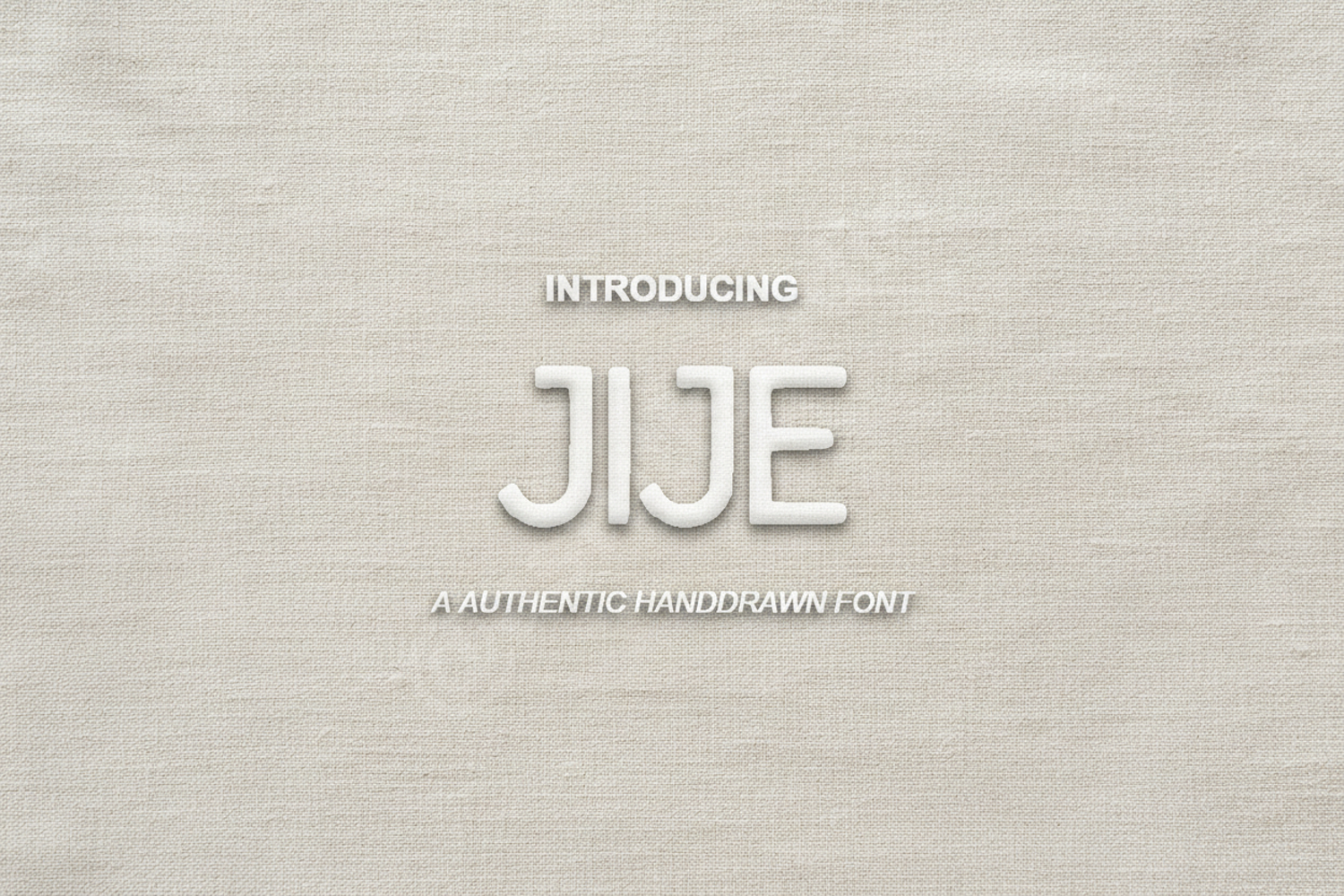
Jije - Sophisticated Modern Serif Font
Jije
Introducing Jije, a premium serif font designed with a perfect balance of modern sophistication and timeless elegance. Crafted for designers who demand excellence, Jije offers clean lines and unique character shapes that make every project stand out. Its versatile nature ensures that your designs remain both trendy and classic.
- High-end Branding and Identity
- Luxury Wedding Invitations and Stationery
- Editorial Design and Magazine Layouts
- Professional Logo Design
- Social Media Graphics and Quotes
- Website Headers and Modern UI Design